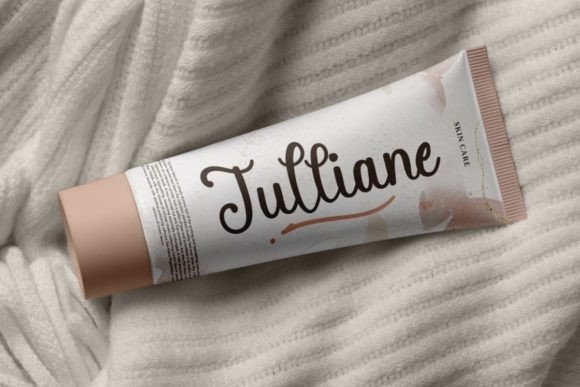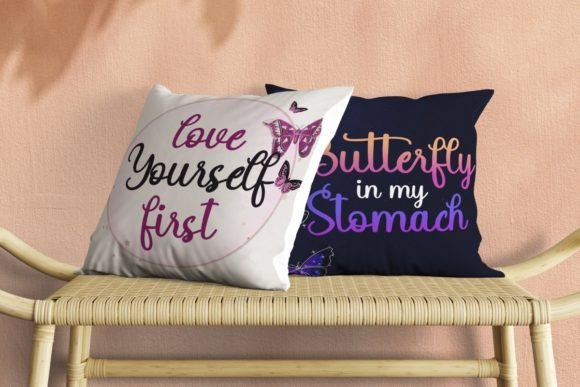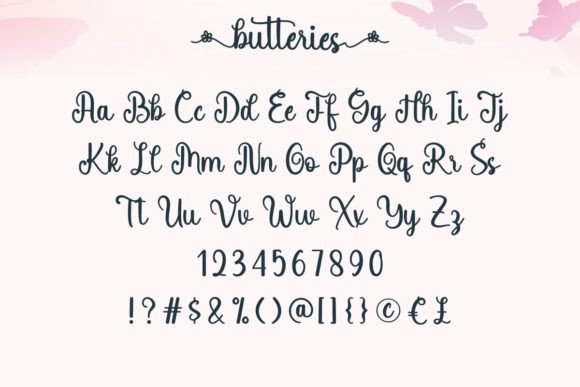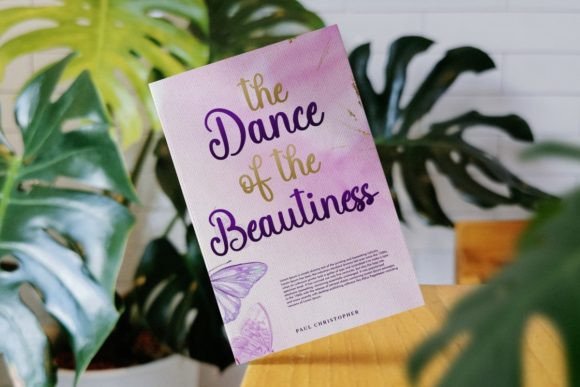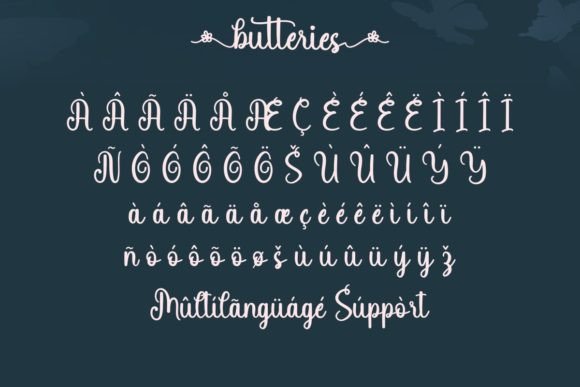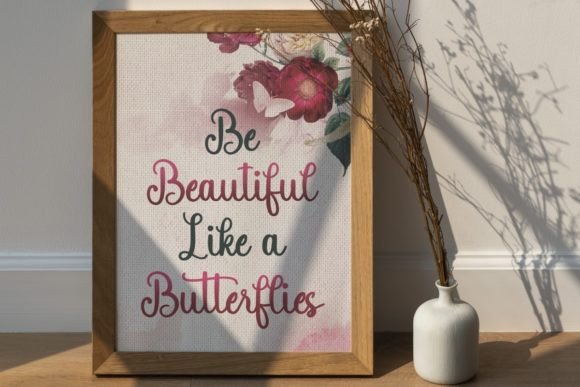
Introducing Butteries Font: The Perfect Handwritten Touch for Your Designs
Are you looking for a font that exudes charm and elegance? Look no further than Butteries Font! This beautiful handwritten font is perfect for adding a personal touch to your designs, and its versatility makes it suitable for a wide range of projects.
A Font that Feels Equally Charming and Elegant
Butteries Font is a stunning script font that feels equally charming and elegant. Its flowing lines and delicate curves make it perfect for designs that require a touch of sophistication. Whether you’re creating wedding invitations, thank you cards, quotes, or greeting cards, Butteries Font is sure to impress.
One of the best things about Butteries Font is its versatility. It looks stunning on:
- Wedding invitations: Add a touch of romance and elegance to your wedding invitations with Butteries Font.
- Thank you cards: Express your gratitude in style with this beautiful handwritten font.
- Quotes: Make your quotes stand out with the elegant and charming Butteries Font.
- Greeting cards: Create beautiful greeting cards for any occasion with this stunning font.
- Logos: Add a personal touch to your logo with Butteries Font.
- Business cards: Stand out from the crowd with this elegant and professional font.
Why Designers and Crafters Love Butteries Font
Designers and crafters love Butteries Font for its unique and elegant style. Here are just a few reasons why:
- Unique style: Butteries Font has a unique and distinctive style that sets it apart from other fonts.
- Elegant and charming: This font exudes elegance and charm, making it perfect for designs that require a touch of sophistication.
- Versatile: Butteries Font is suitable for a wide range of design projects, from wedding invitations to logos.
Tips for Using Butteries Font
Here are a few tips for using Butteries Font in your designs:
- Use it sparingly: Butteries Font is a beautiful font, but it can be overwhelming if used too much. Use it sparingly to add a touch of elegance to your designs.
- Pair it with other fonts: Butteries Font pairs well with other fonts, so don’t be afraid to experiment with different combinations.
- Experiment with colors: Butteries Font looks stunning in a variety of colors, so experiment with different colors to find the one that works best for your design.
Butteries Font is a beautiful handwritten font that is perfect for adding a personal touch to your designs. Its elegant and charming style makes it suitable for a wide range of projects, from wedding invitations to logos. With PUA encoding, accessing glyphs and ligatures is easy, making it simple to customize your designs. Whether you’re a designer or crafter, Butteries Font is a great addition to your font collection.